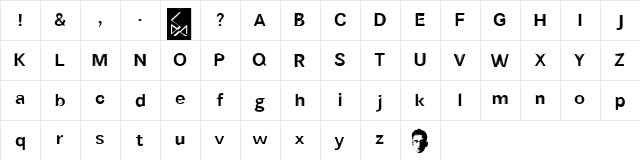
Moulded Saji Moulded Saji
Design Context for Moulded Saji Typeface
Moulded Saji offers clean, dependable letterforms without strong stylistic allegiance, making it a practical choice for designers who need flexibility.